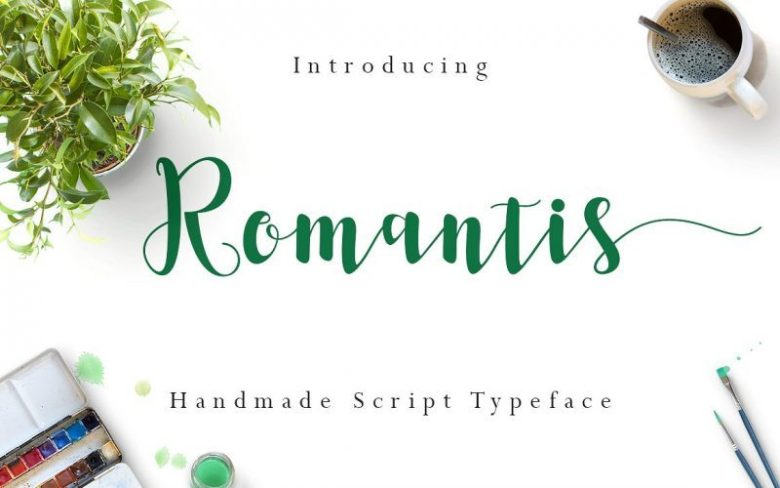
Romantis Script Font
Romantis Script, connecting script, designed to convey elegance and style. Romantis Script will work perfectly for fashion, e-commerce brands, trend blogs, or any business that wants to appear classy and chic.
The font is ideal for high-end logotypes and magazine headlines, but let’s not forget greeting cards, invitations, posters, ads and the various web usages.